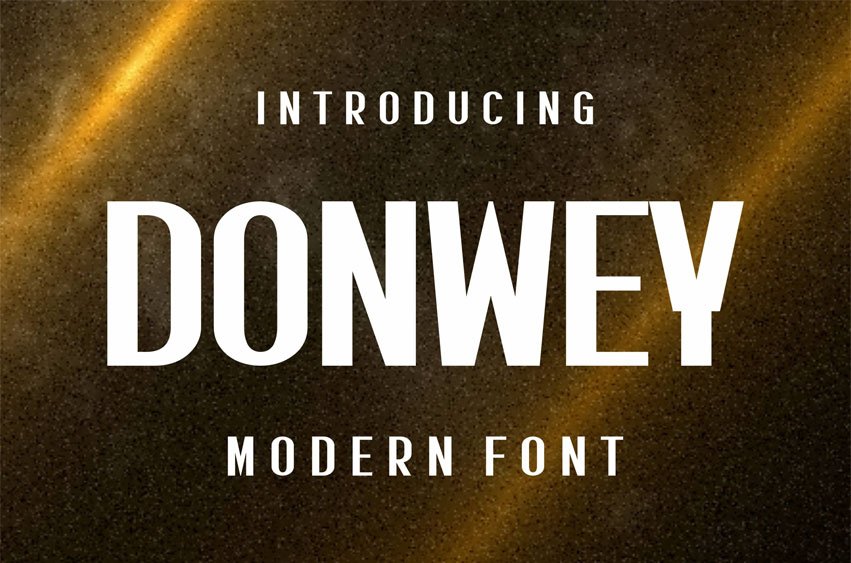
Donwey Font is a Modern Font Perfectly suited for print and screen. It’s perfect for Branding, name cards, posters, logos, magazines, covers, banners, t-shirts, headers, or even large-scale artwork.